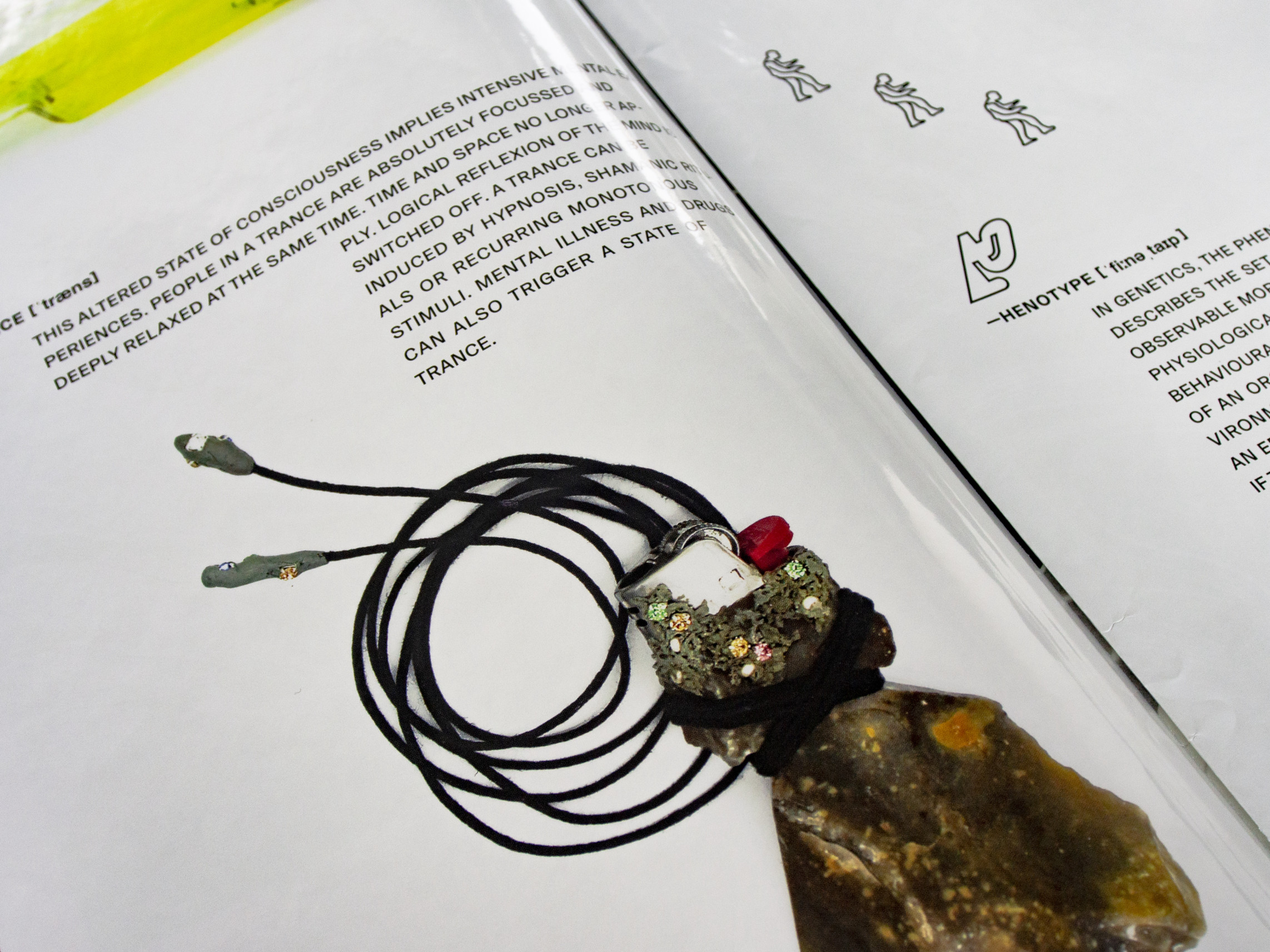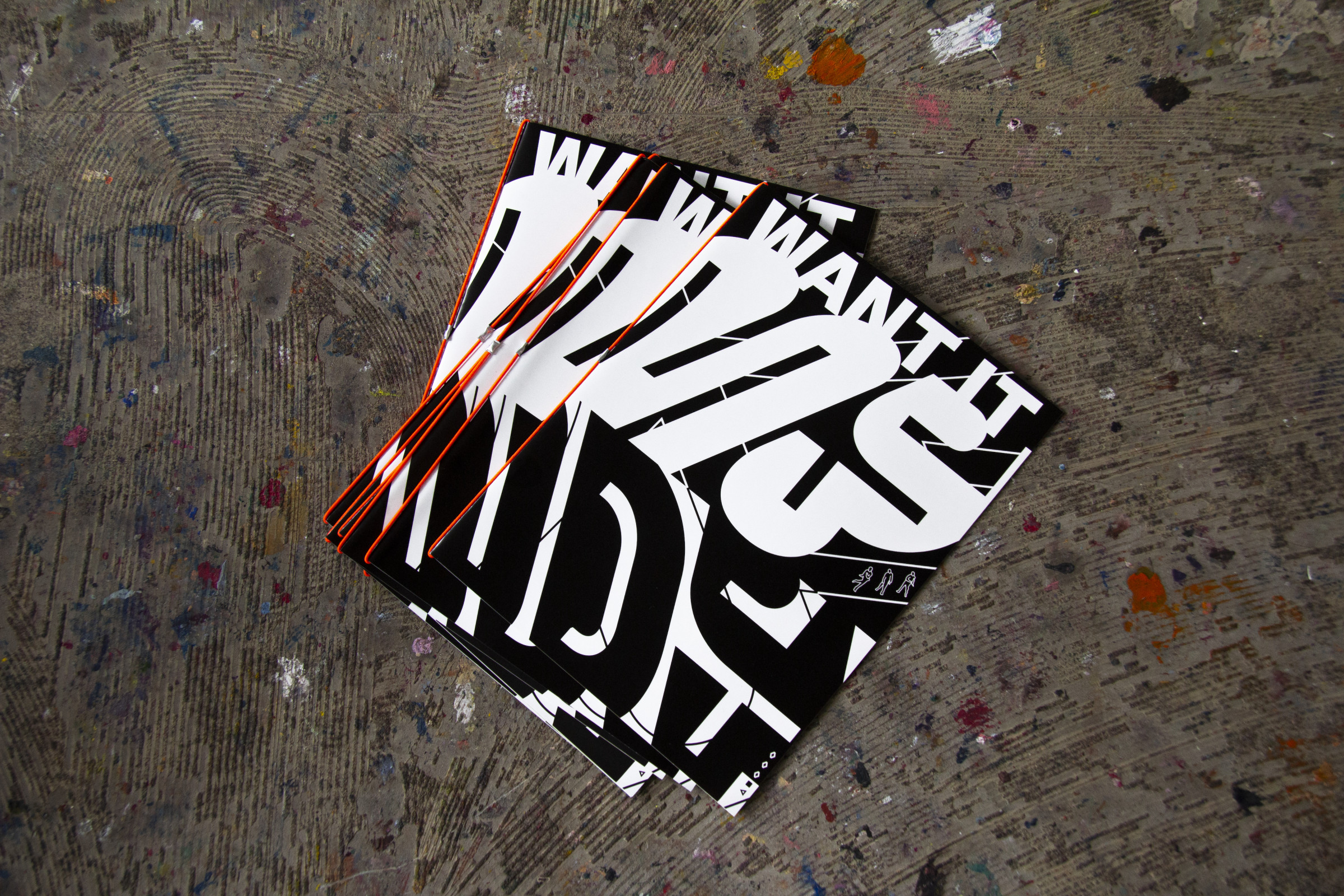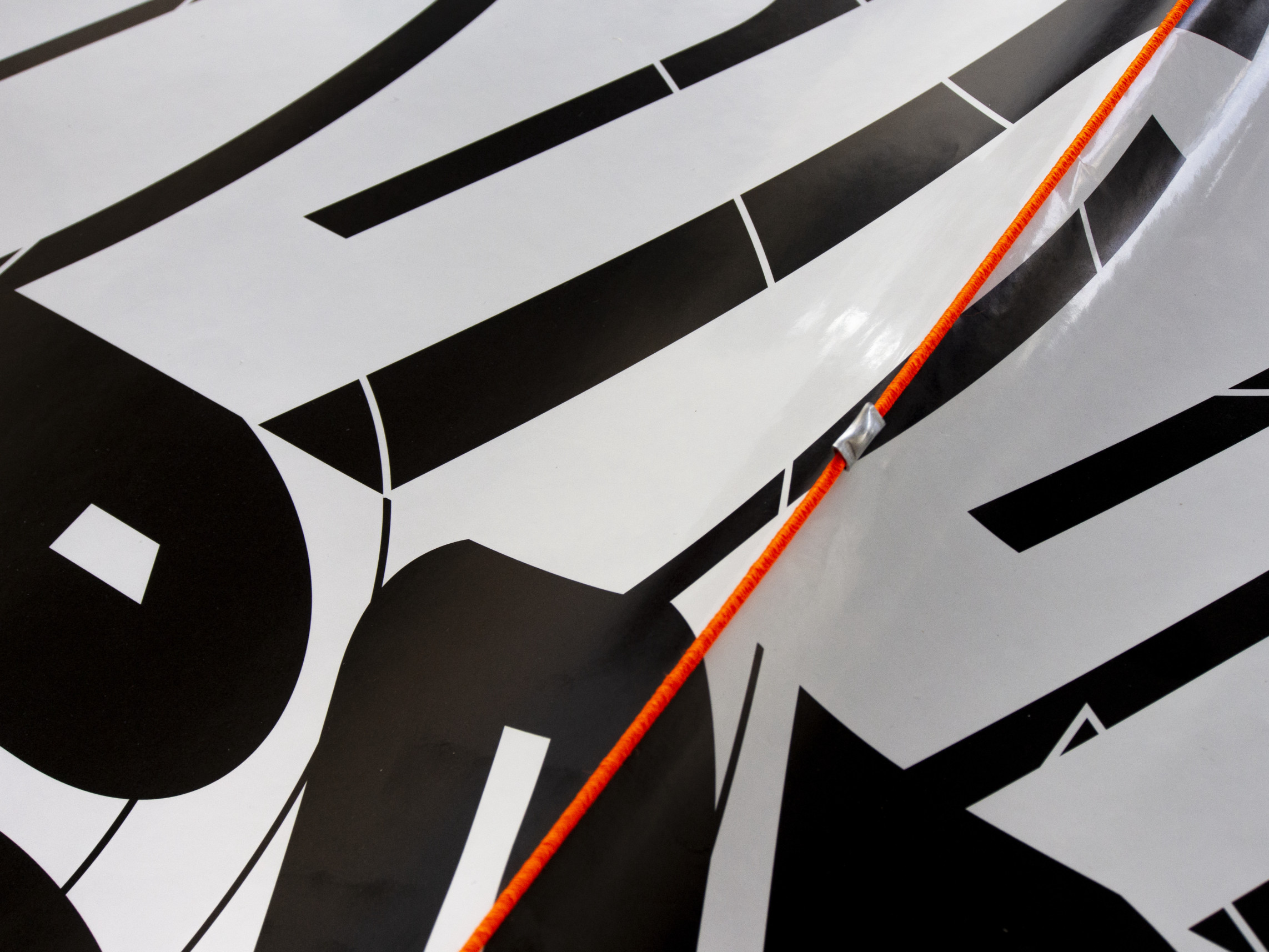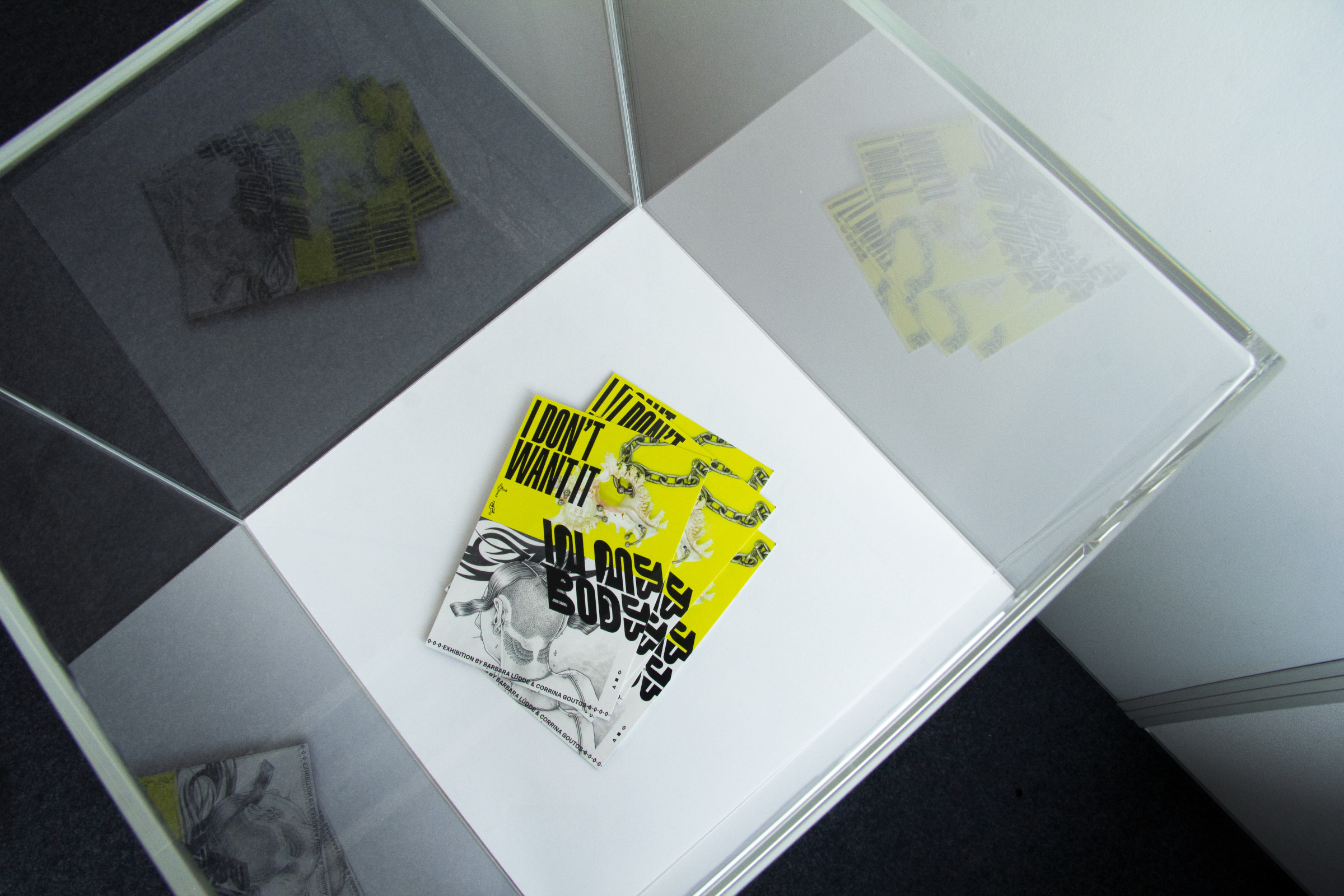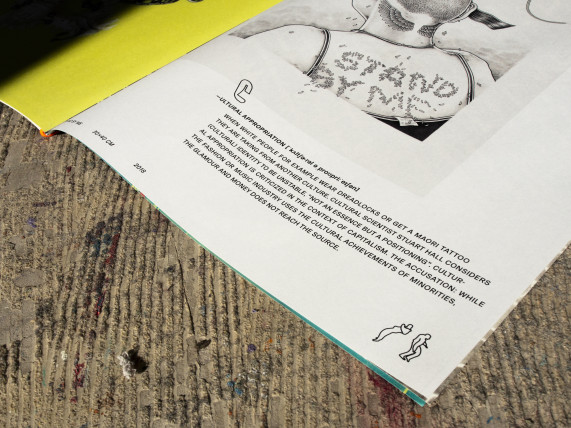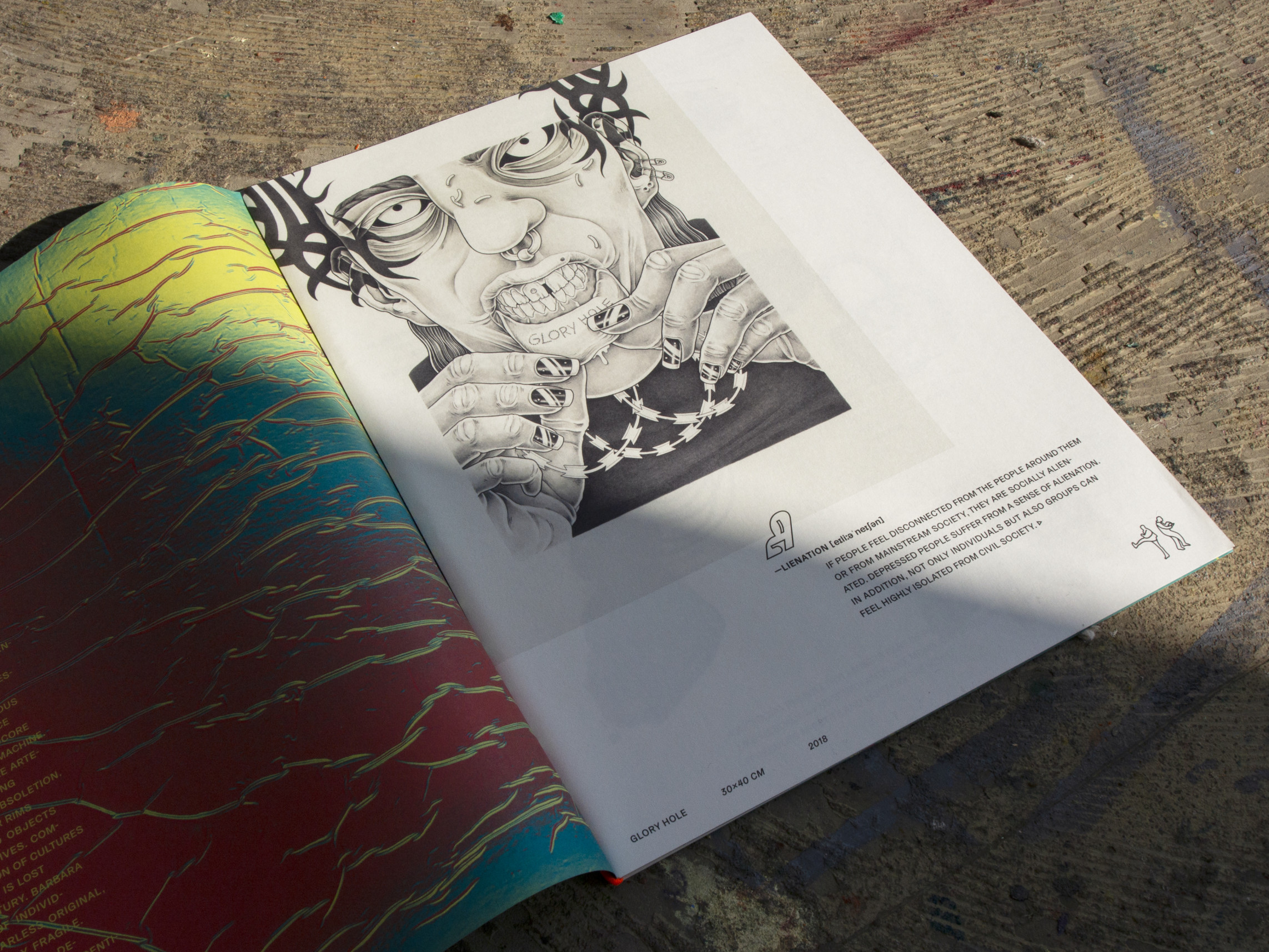
I Don’t Want It In My Body
Publication for the exhibition I DON’T WANT IT IN MY BODY by Corrina Goutos and Barbara Luedde at the Galerie Âme Nue. Parallel to the theme of the artists’s works the booklet and postcard design emerges into the world of Techno and Gabba. Small illustrations of dancing silhouettes float through the arrangement of texts and images and the typography emphasizes the technoid and dynamic feeling. The paper is cast-coated on one side and matte on the other, reflecting the materials of the artworks.
Typeface: Graebenbach by Camelot Typefaces, Rainer by Philipp Neumeyer
& Pickle Standard by Benoît Bodhuin